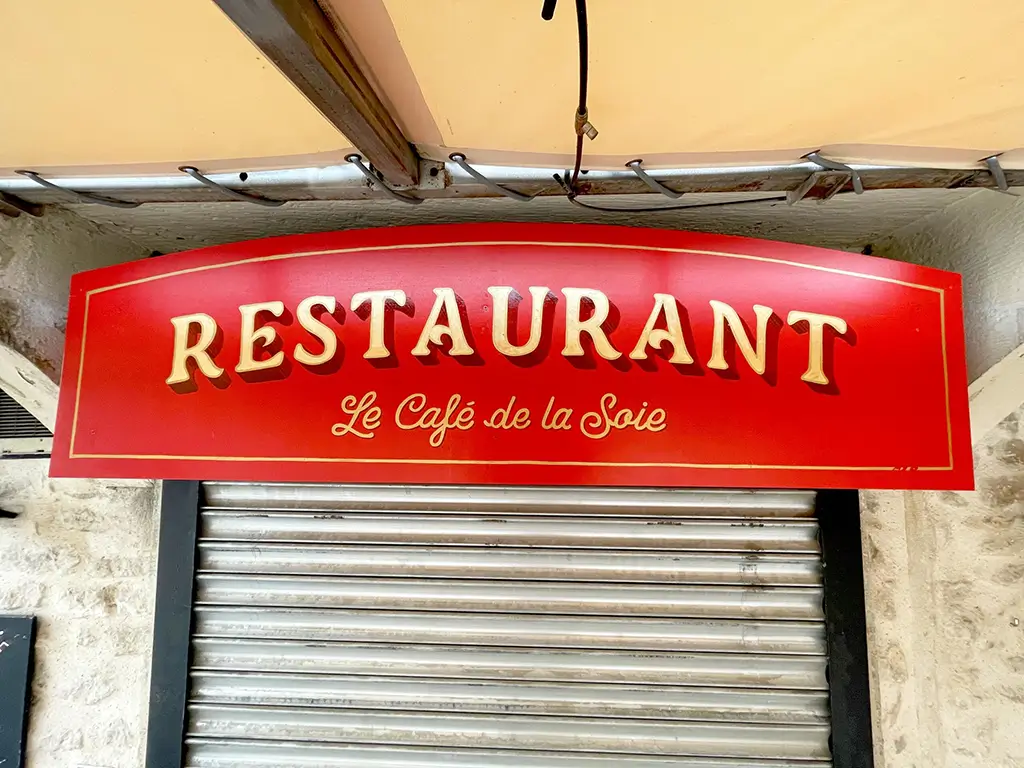
Hand lettering classical serif font but didn't find it… (Café De La Soie)
For a project, I search this font or similar withe the specialities on the A and the E of the "RESTAURANT" text.
Is someone able to identify it or telle me the nearest font ?